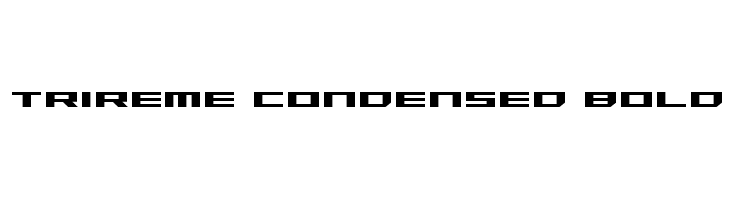
A modern, geometric font with clean lines and uniform stroke width.
A light, italicized font with a modern and clean design.
A bold, futuristic font with geometric shapes and sharp angles.
A bold, geometric font with a 3D effect, ideal for modern and dynamic designs.
A dynamic, 3D italic font with a futuristic and geometric design.
A bold, futuristic font with geometric and three-dimensional elements.
A futuristic, italicized font with bold, angular letterforms.
A bold, geometric font with a futuristic and modern aesthetic.
A bold, italicized font with a futuristic, angular design.
A bold, geometric font with a futuristic, digital aesthetic and condensed width.